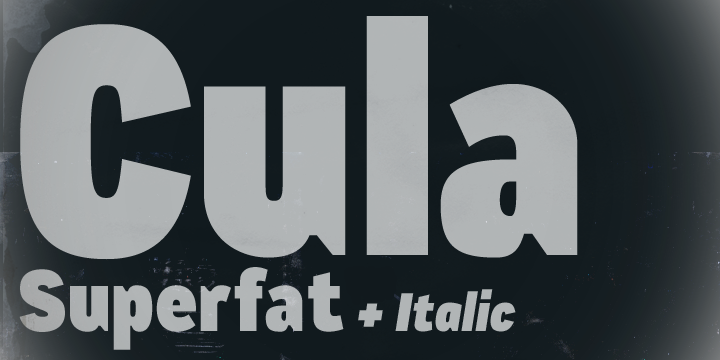
CA Cula Superfat Font is ideal for bold advertising campaigns, superhero comic graphics, impactful poster designs, heavy-duty industrial branding, powerful automotive marketing, extreme sports events, commanding billboard displays, maximum impact headlines, bold fashion statements, and attention-grabbing promotional materials.
What makes CA Cula Superfat Font exciting is its massive presence and commanding weight that embodies the essence of maximum impact with overwhelming boldness and unstoppable visual force. This powerful typeface captures the spirit of extreme boldness with its super-heavy character forms and ultra-thick proportions that seem to break through visual barriers with the force of a superhero punch and the weight of industrial machinery. The font's massive character creates an immediate impression of overwhelming strength and the kind of visual dominance that cannot be ignored or overlooked.
CA Cula Superfat Font family includes regular weight with massively crafted character designs featuring super-heavy proportions and maximum-impact styling. The typeface maintains readability despite its extreme weight while showcasing its distinctive ultra-bold personality through powerfully designed letterforms that seem forged from the densest materials with the kind of visual mass that creates gravitational pull.
Bold designers consistently choose CA Cula Superfat Font Free Download for projects requiring authentic maximum-impact appeal and ultra-bold credibility. This remarkable typeface brings the power of extreme visual weight to brand communications, combining massive aesthetics with commanding presence to create unforgettable bold experiences. The massively designed characters ensure maximum visual dominance across all applications, making it essential for advertising agencies, extreme brands, and any organization seeking to communicate the transformative power of maximum impact and the overwhelming presence that comes from embracing extreme visual boldness through CA Cula Superfat Font Free Download.